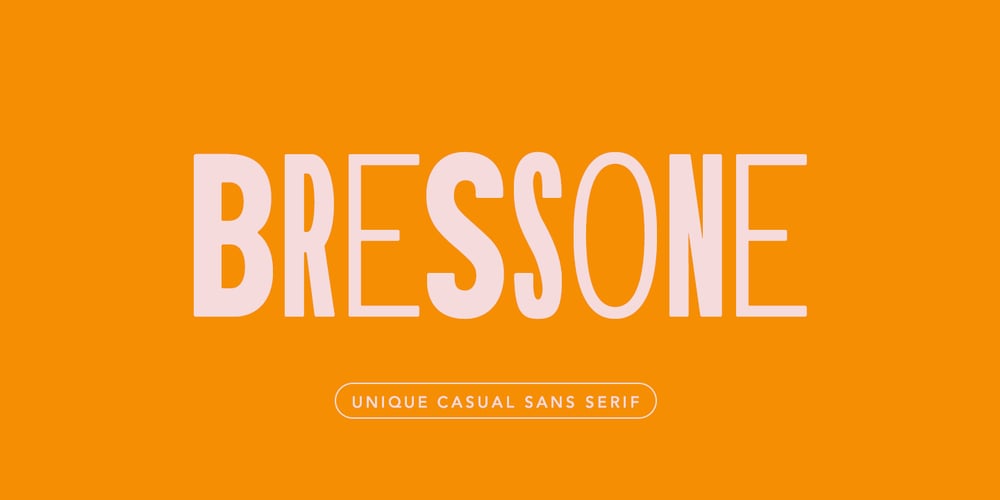
Bressone Font Family was designed by Dmitrii Chirkov and published by Supfonts. Bressone contains 1 styles and family package options. Bressone is an elegant, experimental font that is perfect for any project.Font Features:Language support: All European languagesMultilingual Characters: AÁĂÂÄÀĀĄÅÃÆBCĆČÇĊDÐĎĐEÉĚÊËĖÈĒĘẼFGĞĢĠḠHĦIIJÍÎÏİÌĪĮĨJKĶLĹĽĻŁMNŃŇŅÑ OÓÔÖÒŐŌØÕŒPÞQRŔŘŖSŚŠŞȘẞTŤŢȚUÚÛÜÙŰŪŲŮŨVWẂŴẄẀXYÝŶŸỲỸZŹŽŻThanks so much for checking out my shop, and please get in touch if you have any questions! Don’t forget to subscribe so you don’t miss out on the new awesome fonts